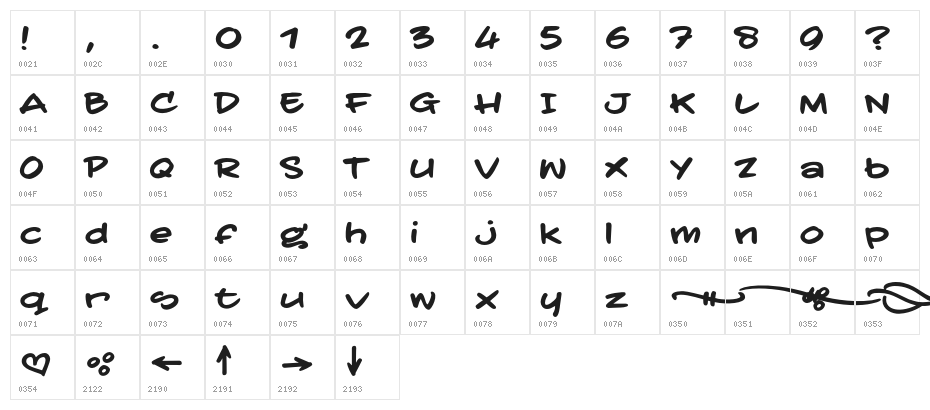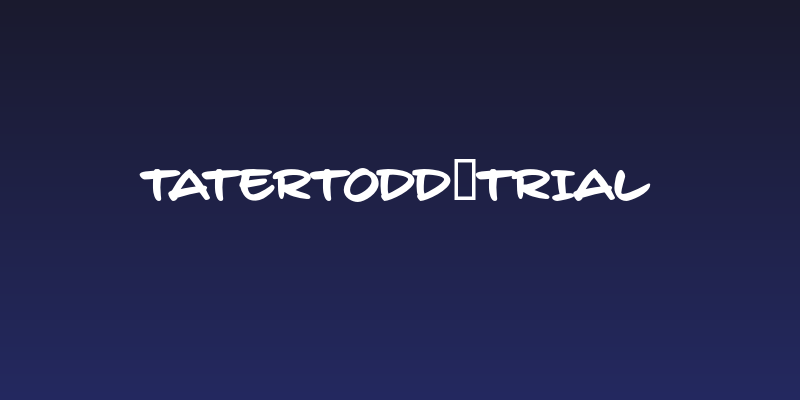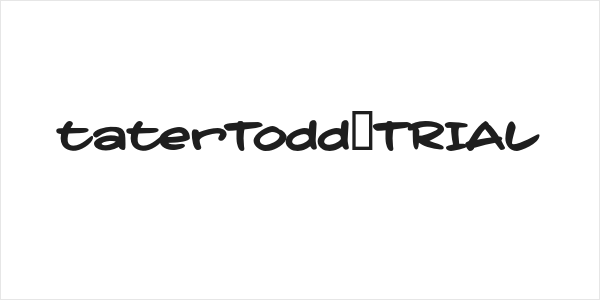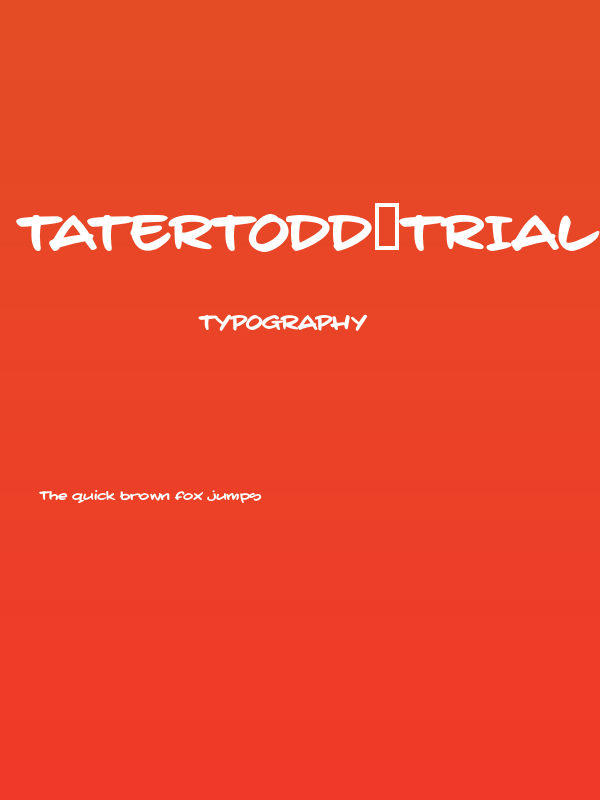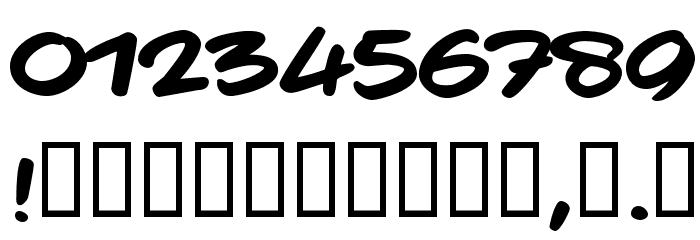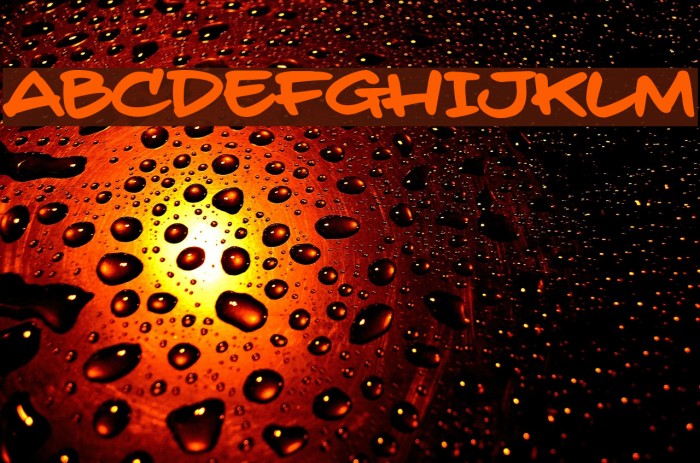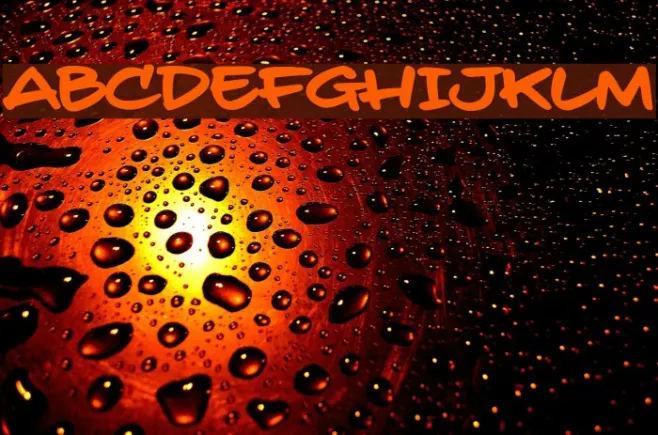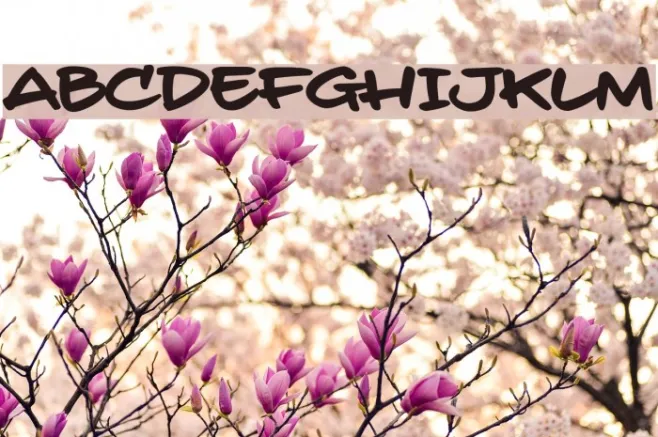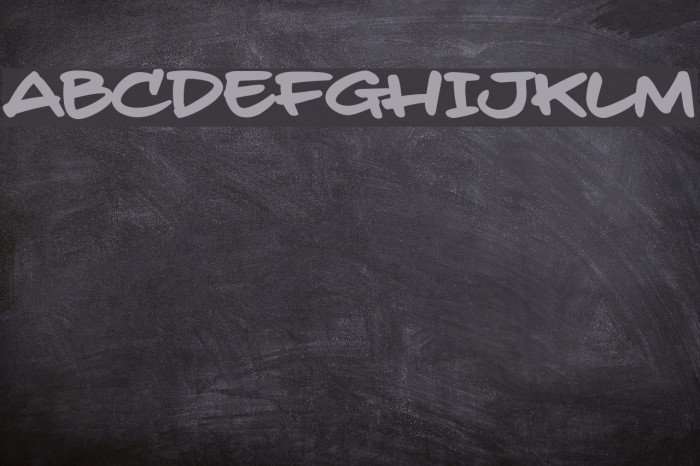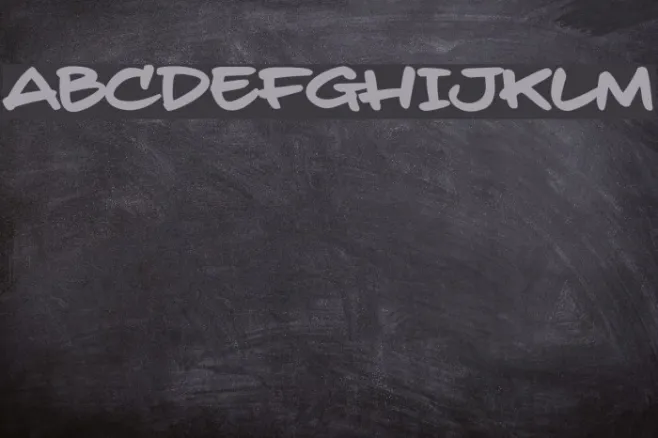
taterTodd_TRIAL Font
taterTodd_TRIAL Description
This font features a playful and energetic handwritten style, characterized by bold and rounded strokes that convey a sense of informality and friendliness. The uppercase and lowercase letters maintain a consistent flow, with slightly exaggerated curves and loops that add to its dynamic appearance. The numbers are equally bold and follow the same lively style, making them stand out. Special characters are included, maintaining the same playful aesthetic. This font is ideal for projects that require a personal touch or a casual, approachable feel.
| Proposed Projects | Ideal for children's books, playful branding, casual invitations, and social media graphics. |